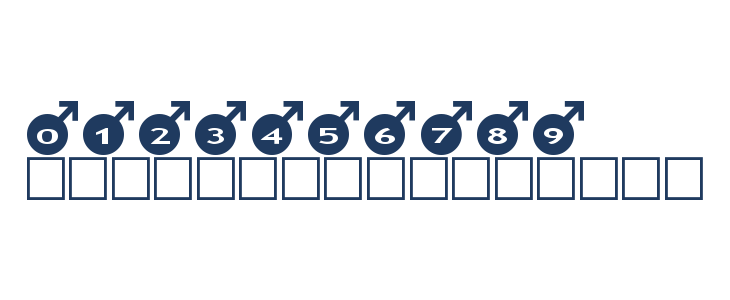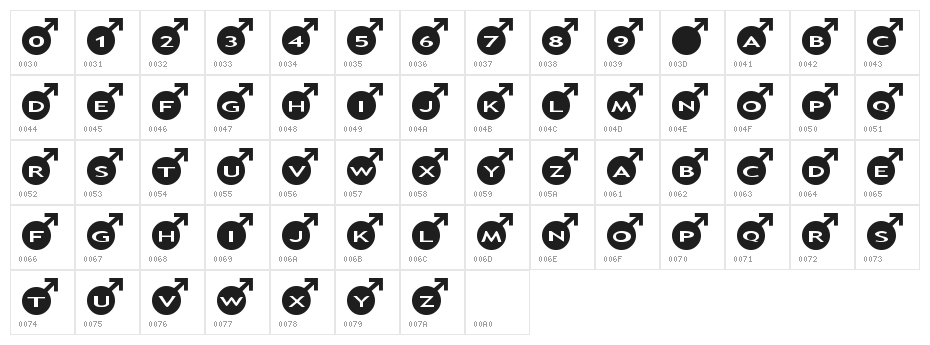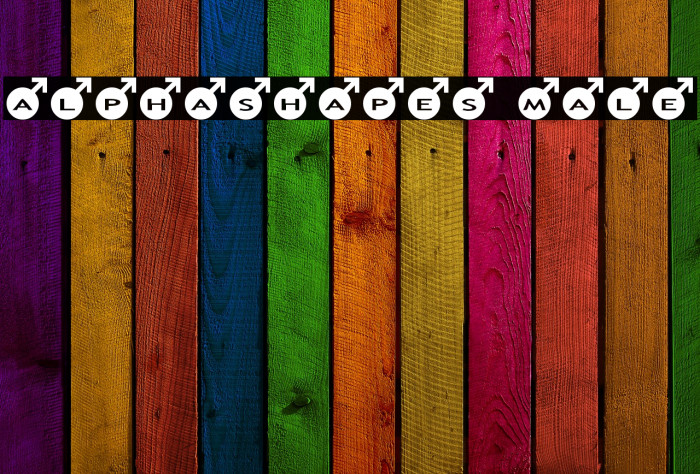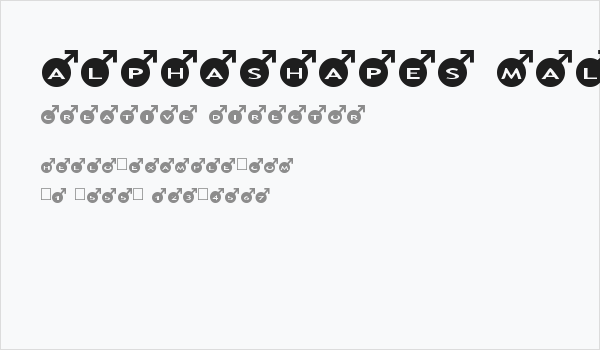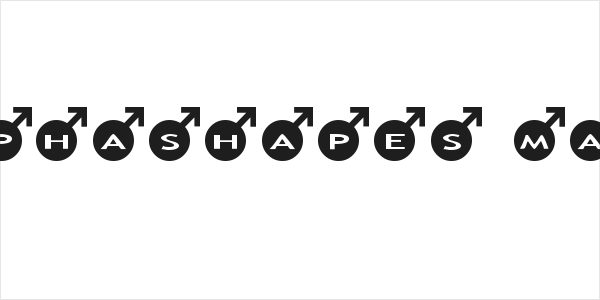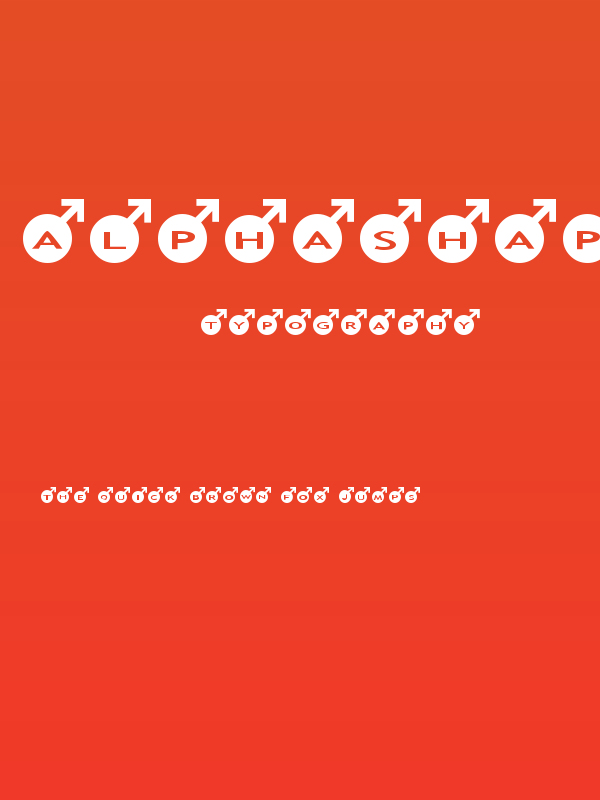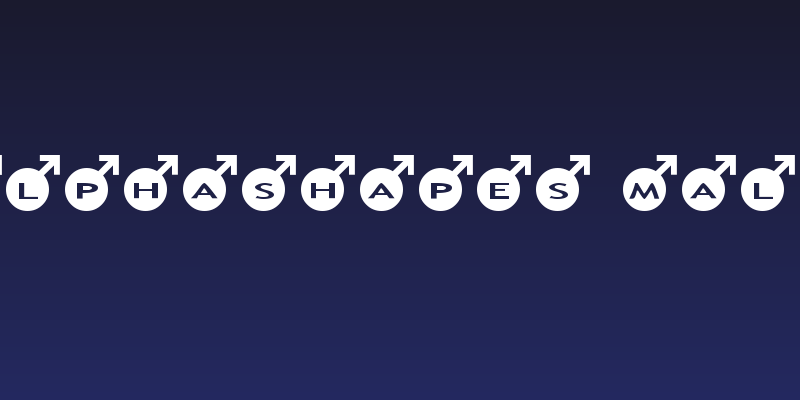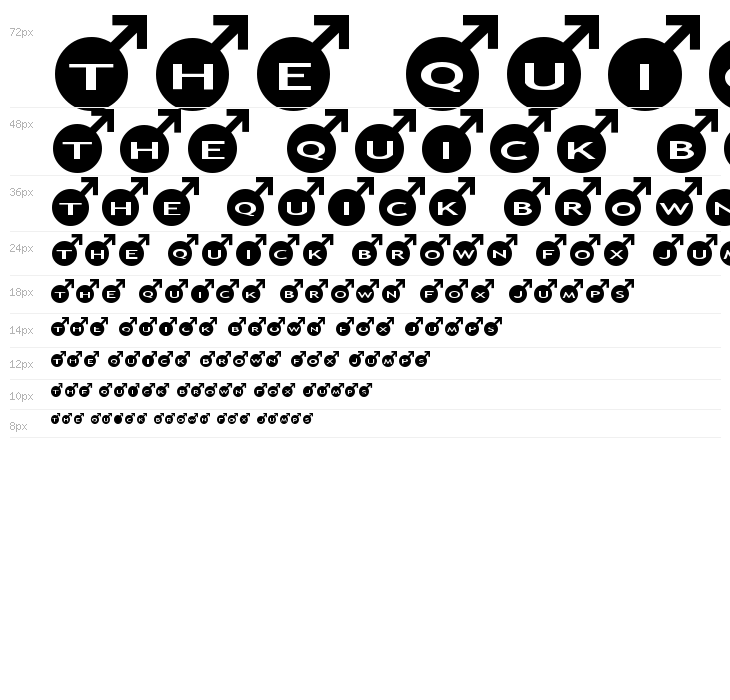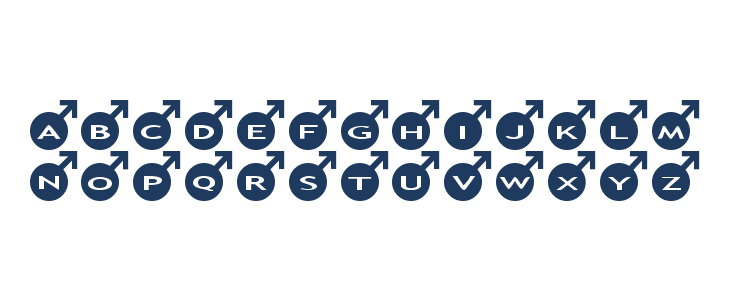
AlphaShapes male Font
AlphaShapes male Description
This font features bold, uppercase letters and numbers encased within solid black circles, each accompanied by a male symbol. The design is striking and modern, with a playful yet assertive aesthetic. The characters are evenly spaced, ensuring readability while maintaining a unique visual appeal. The use of the male symbol adds a thematic element, making it suitable for projects that require a gender-specific or symbolic touch. The font's boldness and distinct style make it ideal for attention-grabbing headlines or branding materials.
| Proposed Projects | Ideal for branding, posters, gender-themed events, or any project needing a bold, symbolic font. |